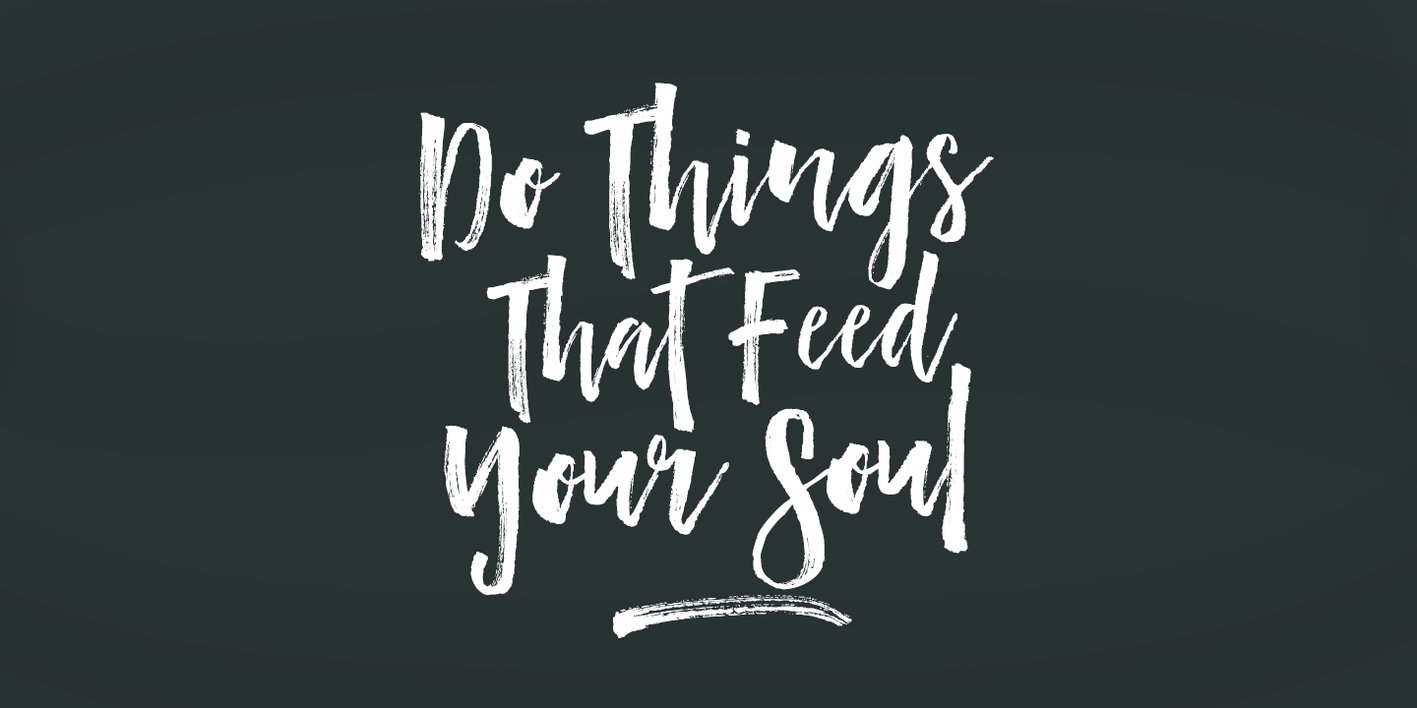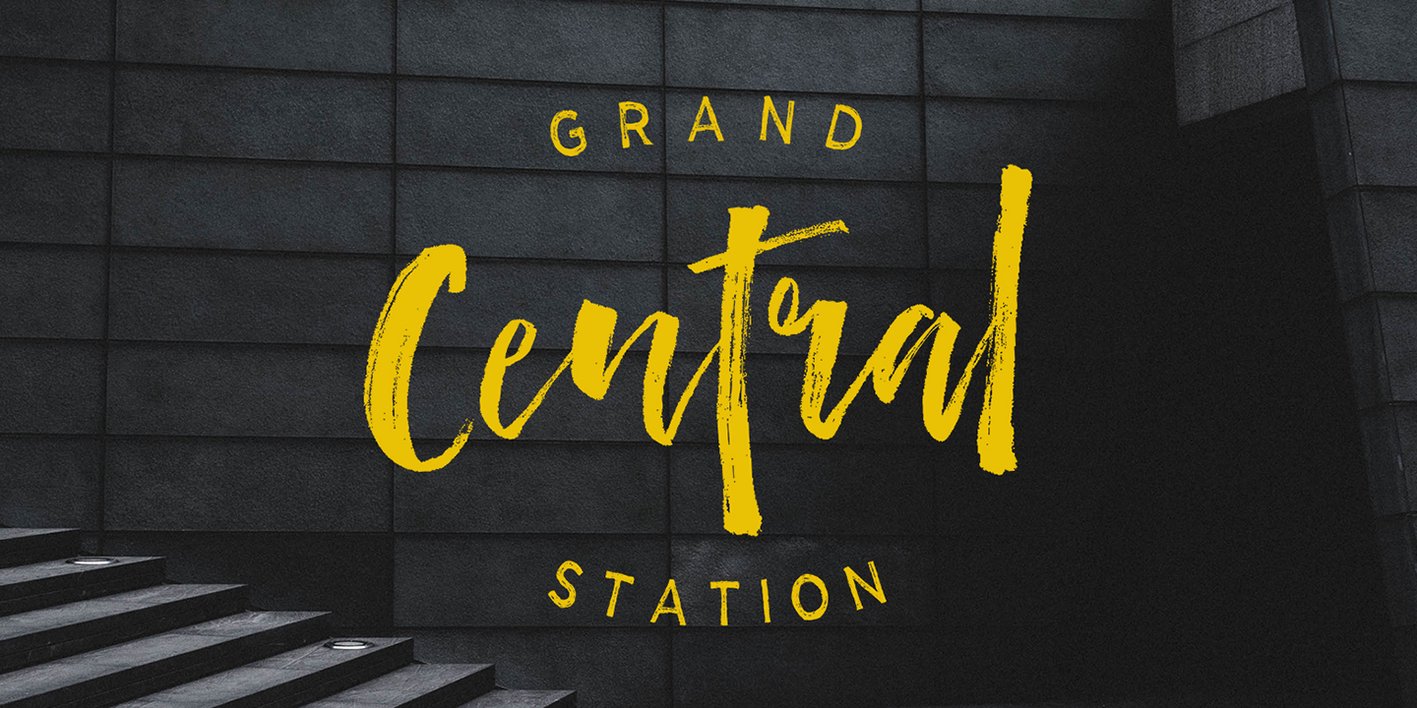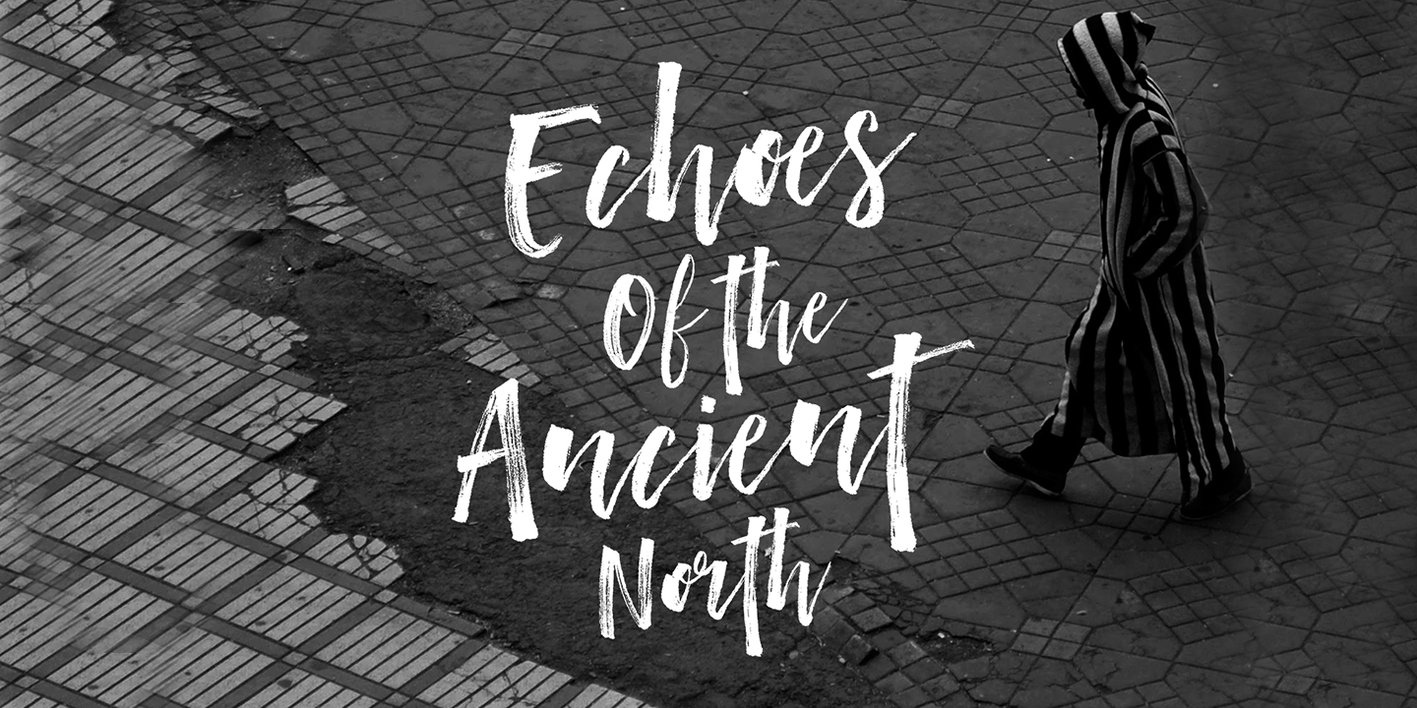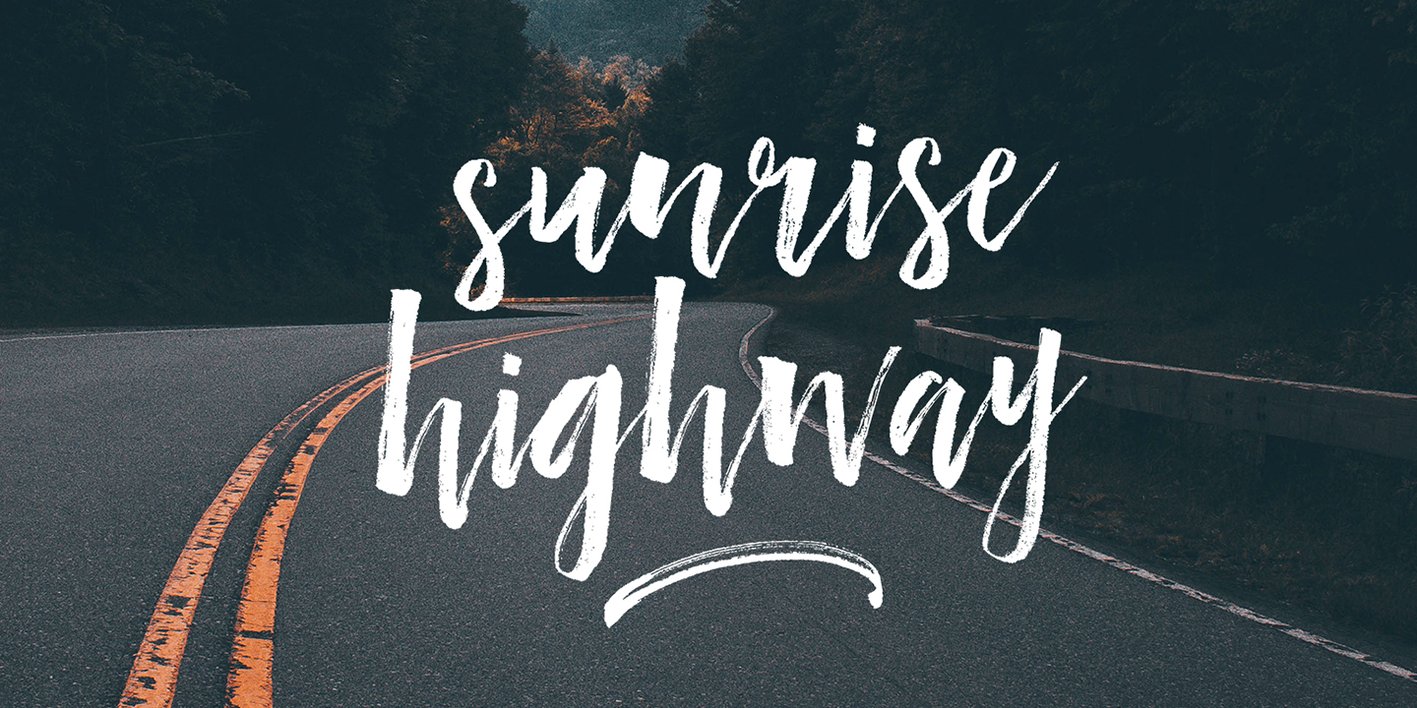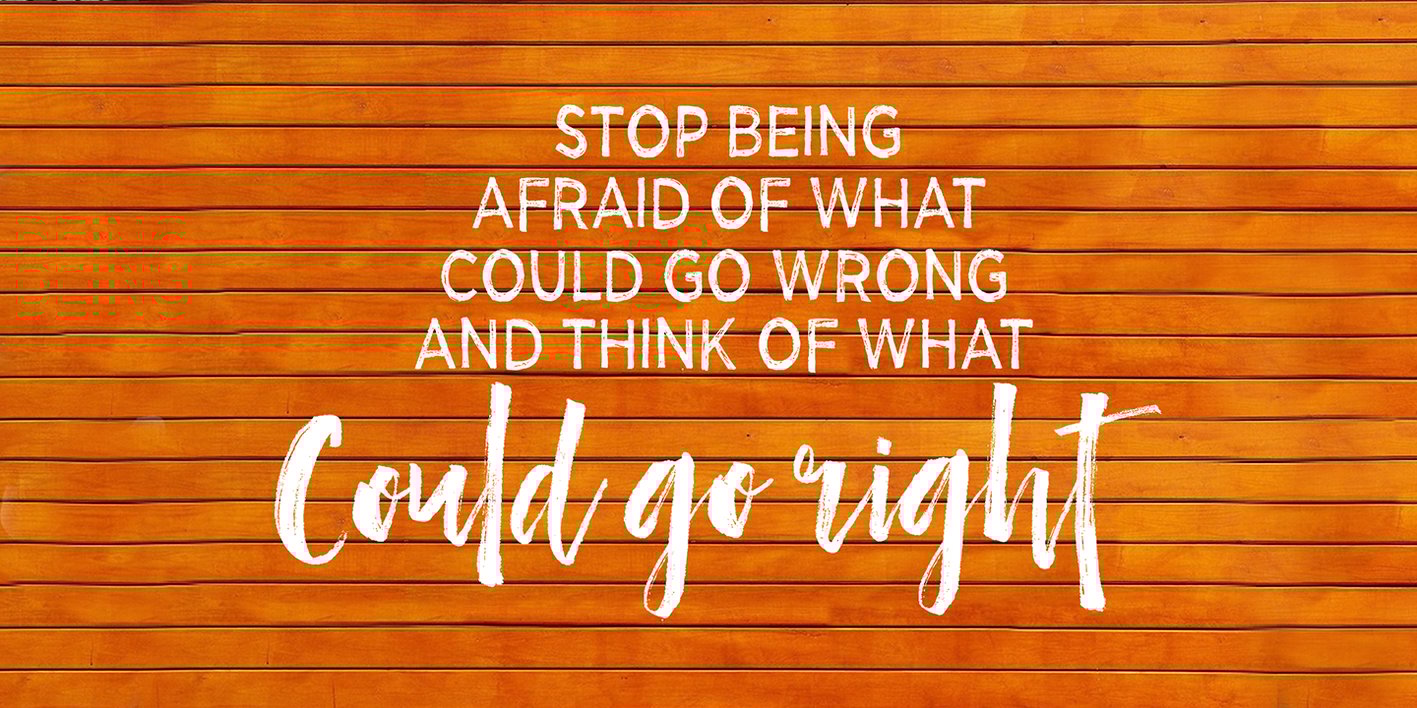
Boomshell Brush Font Family
New font brushed very interesting, also provided some ligatures and swashes extra. Also with additional Boomshell Sans, a font display harmony to be combined with Boomshell Brush. Perfect for projects brands, logos, product packaging, posters, invitations, greeting cards, news, blogs, everything including personal charm etc.